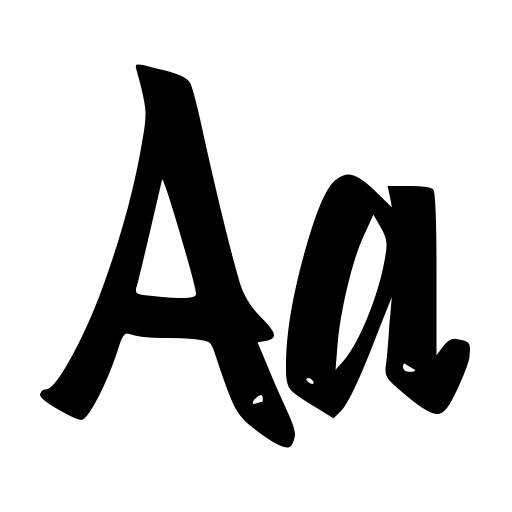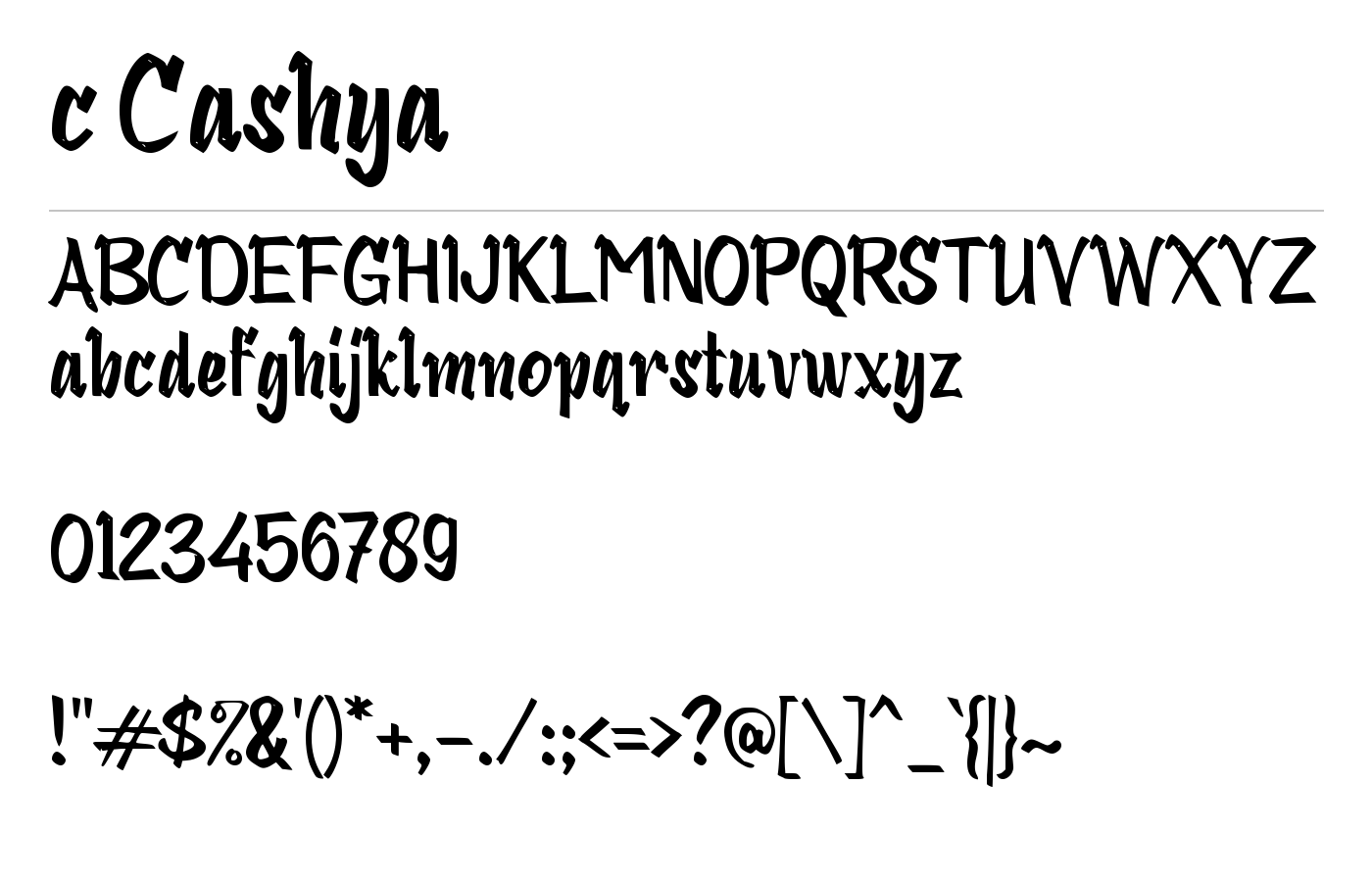
Cashya is a lively and playful script-inspired font with a bold, hand-drawn feel. Its irregular strokes and slightly rough edges give it a casual, artistic personality that works well for creative branding, posters, and fun editorial designs. This font adds a friendly and approachable vibe while maintaining clear readability in both uppercase and lowercase.
c Cashya Font